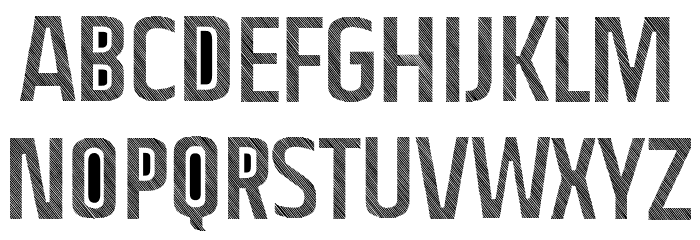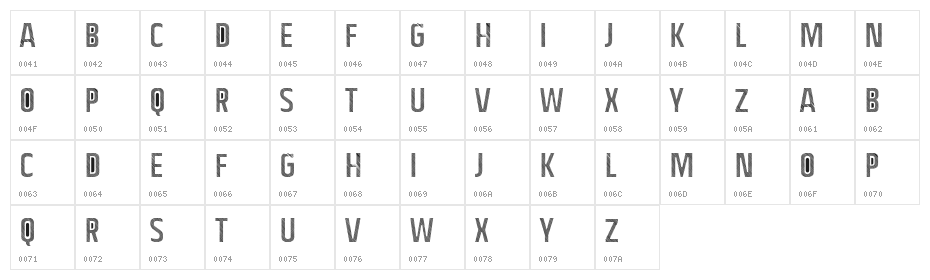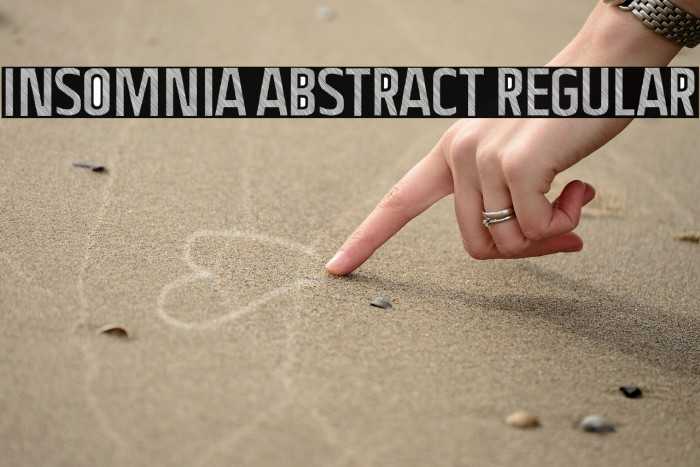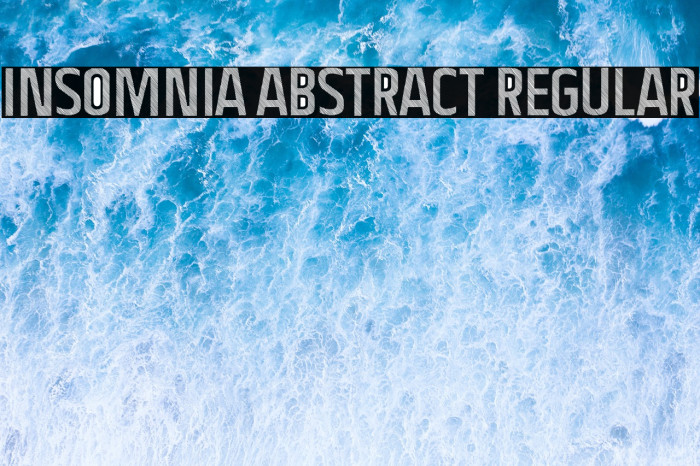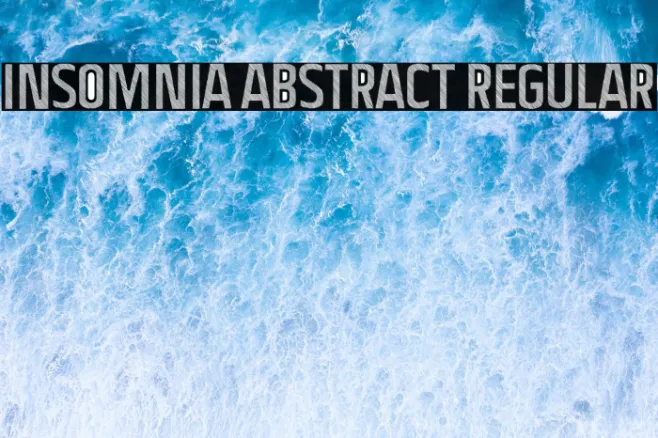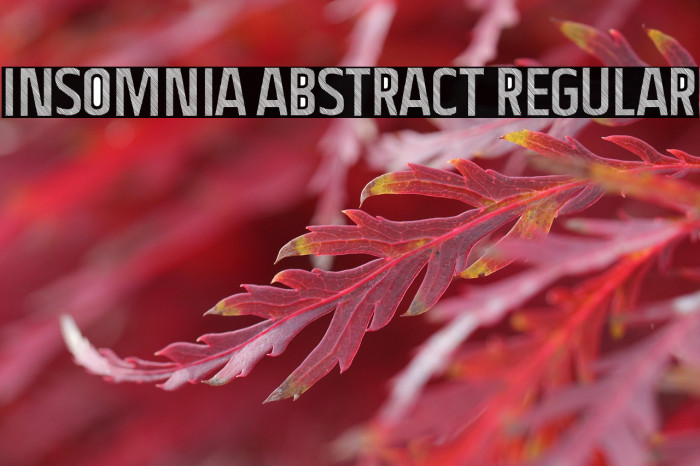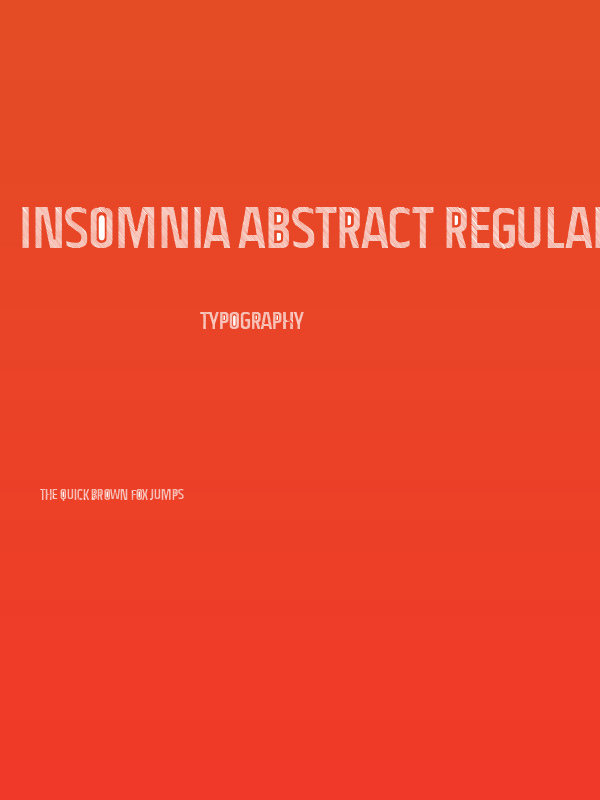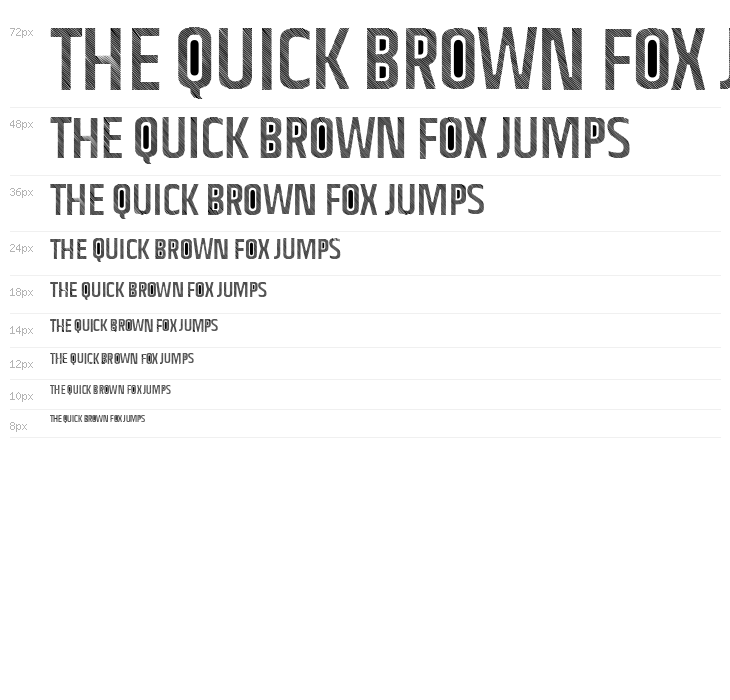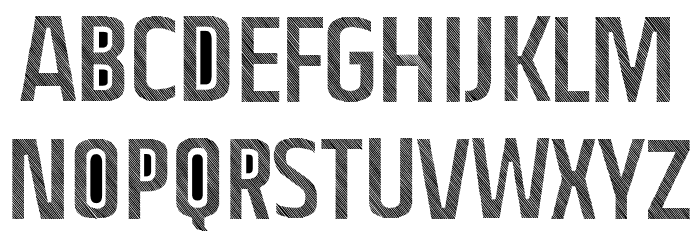
Insomnia Abstract Regular Font
Insomnia Abstract Regular Description
This font features a bold and striking design with a textured, crosshatched pattern filling each character. The uppercase letters are uniform in height and width, creating a cohesive and structured appearance. The unique texture adds depth and visual interest, making it stand out in any design. The font maintains a modern and edgy feel, suitable for projects that require a strong visual impact. Its geometric structure and clean lines make it versatile for various applications, while the textured fill provides a distinctive touch.
| Proposed Projects | Ideal for posters, branding, headlines, and any project needing a bold, eye-catching typeface. |